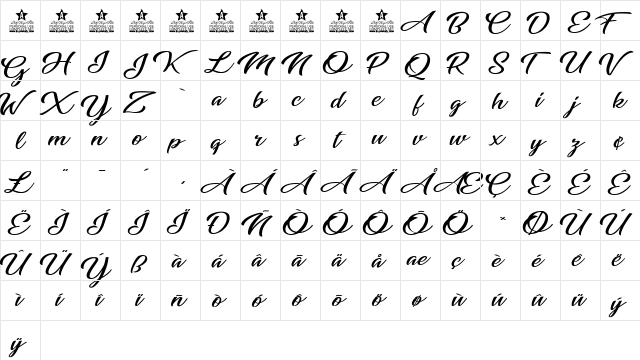
Awesome Season Personal Use Regular
| Foundry | Billy argel |
| Designer | Billy Argel |
Design Context for Awesome Season Personal Use Typeface
Awesome Season Personal Use is a composed and adaptable typeface that performs quietly and consistently across a wide range of design contexts.